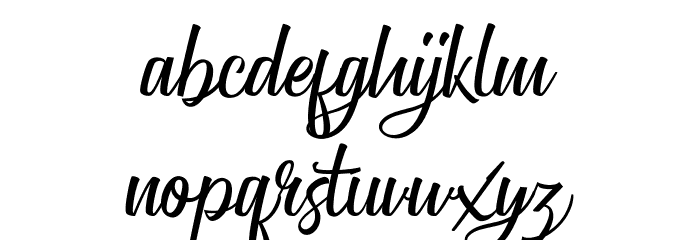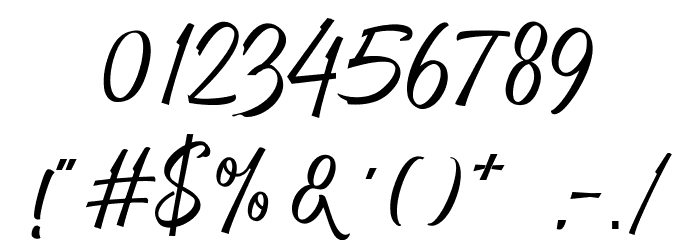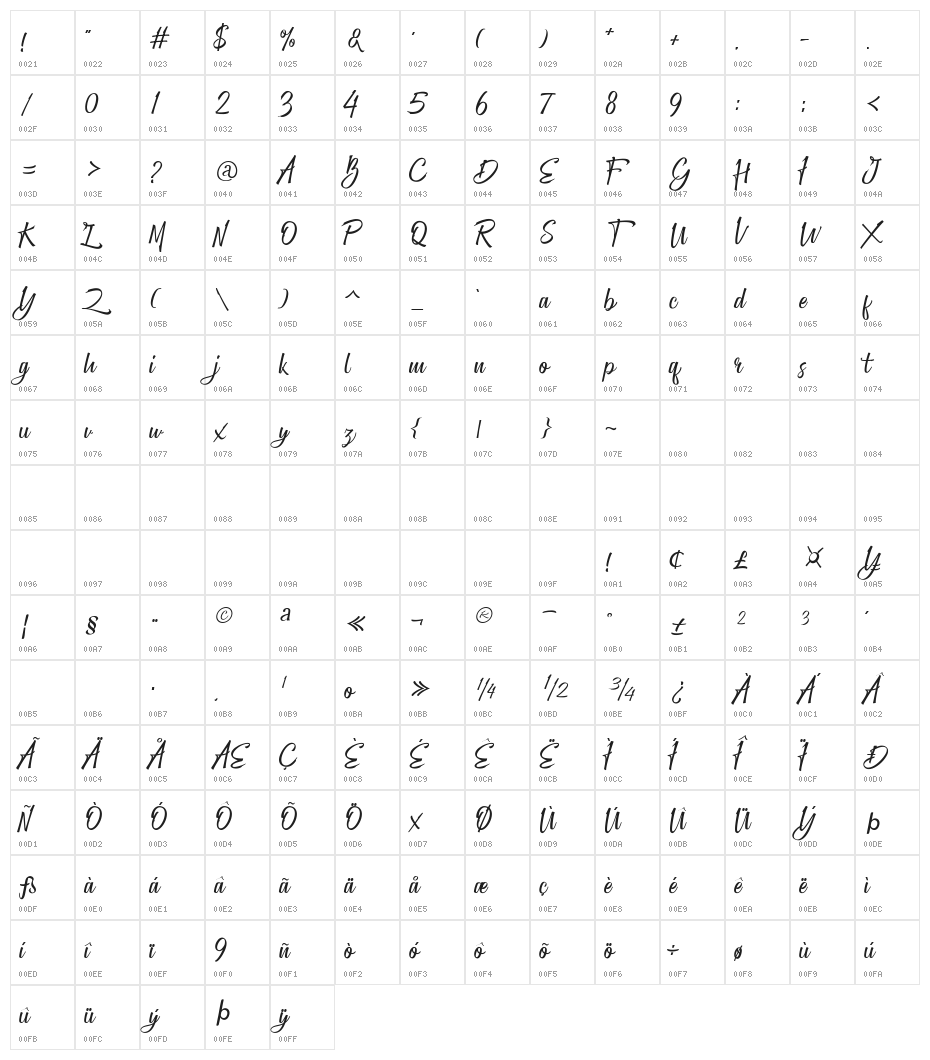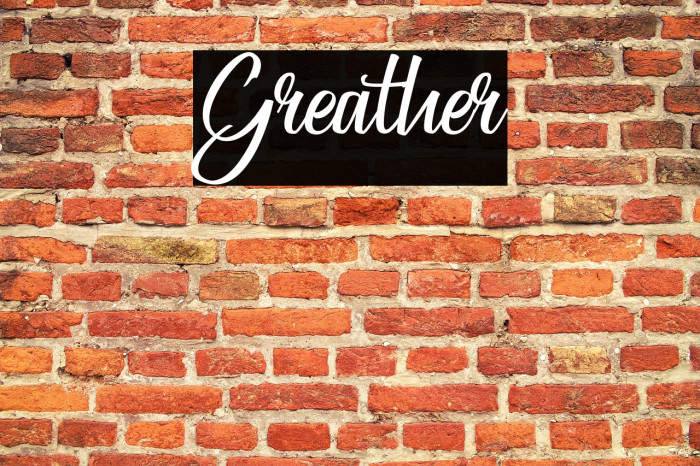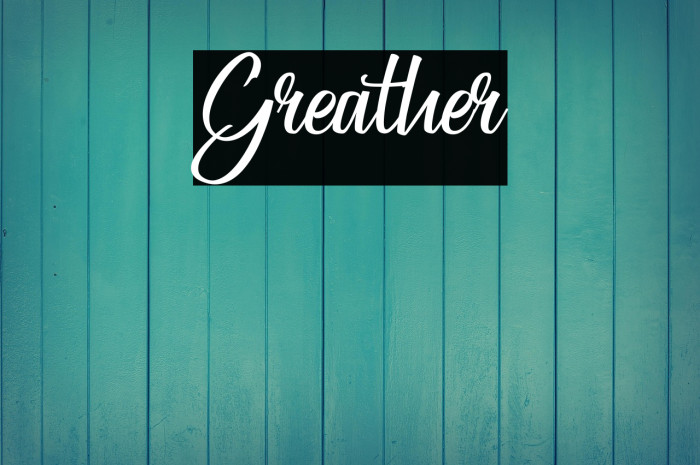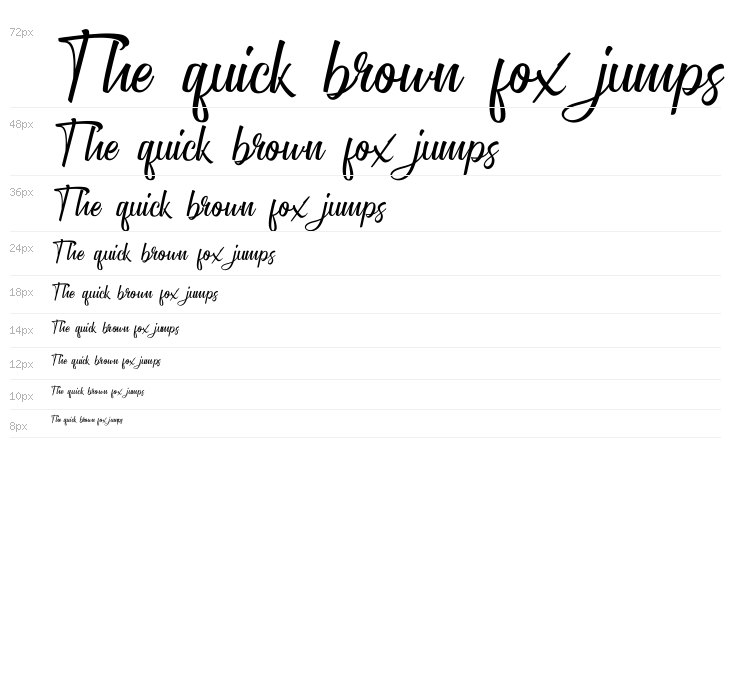
Greather Font
This font exudes a dynamic and energetic style, characterized by its flowing, cursive script that mimics the fluidity of handwriting. The letters are elegantly connected, with a slight slant that adds to its graceful appearance. The strokes vary in thickness, providing a medium contrast that enhances readability while maintaining an artistic flair. The uppercase letters are bold and prominent, while the lowercase letters are more delicate, creating a balanced visual appeal. The numerals and special characters are designed to complement the overall script style, ensuring consistency across all elements.
A dynamic cursive script font with medium contrast and flowing connections.
- Overall Style: Elegant